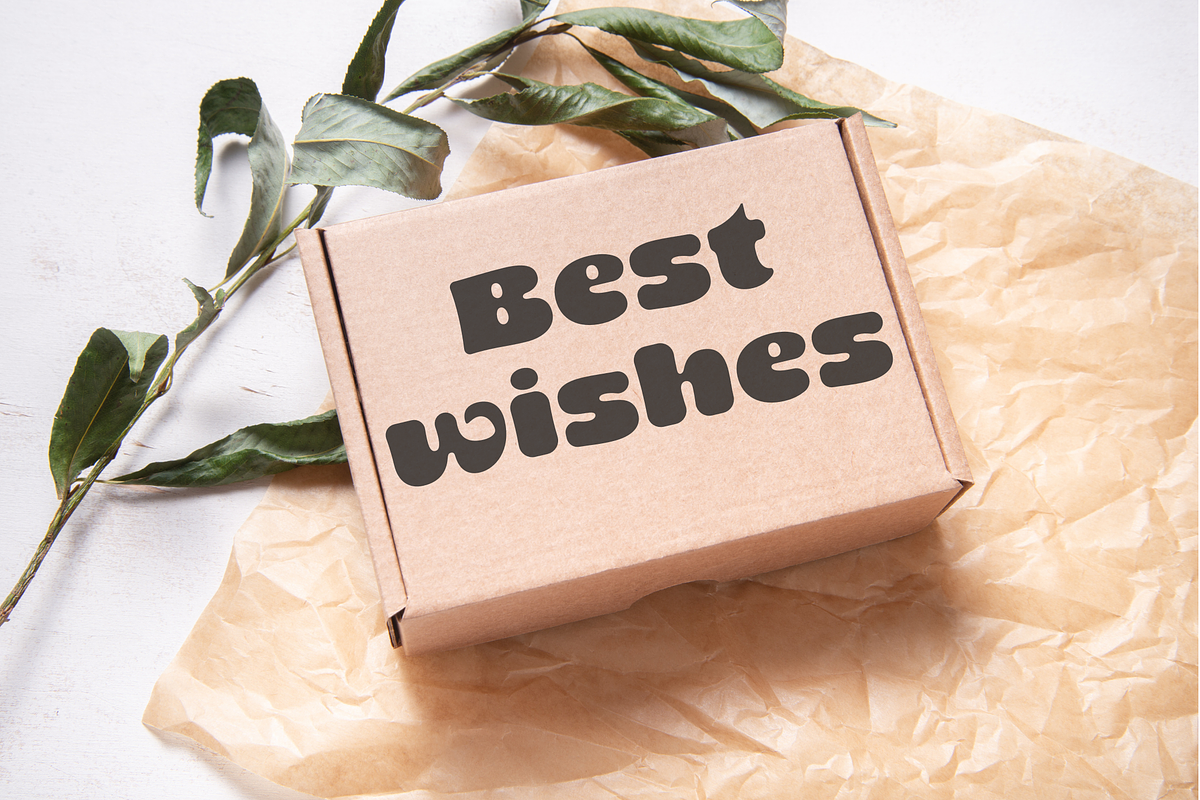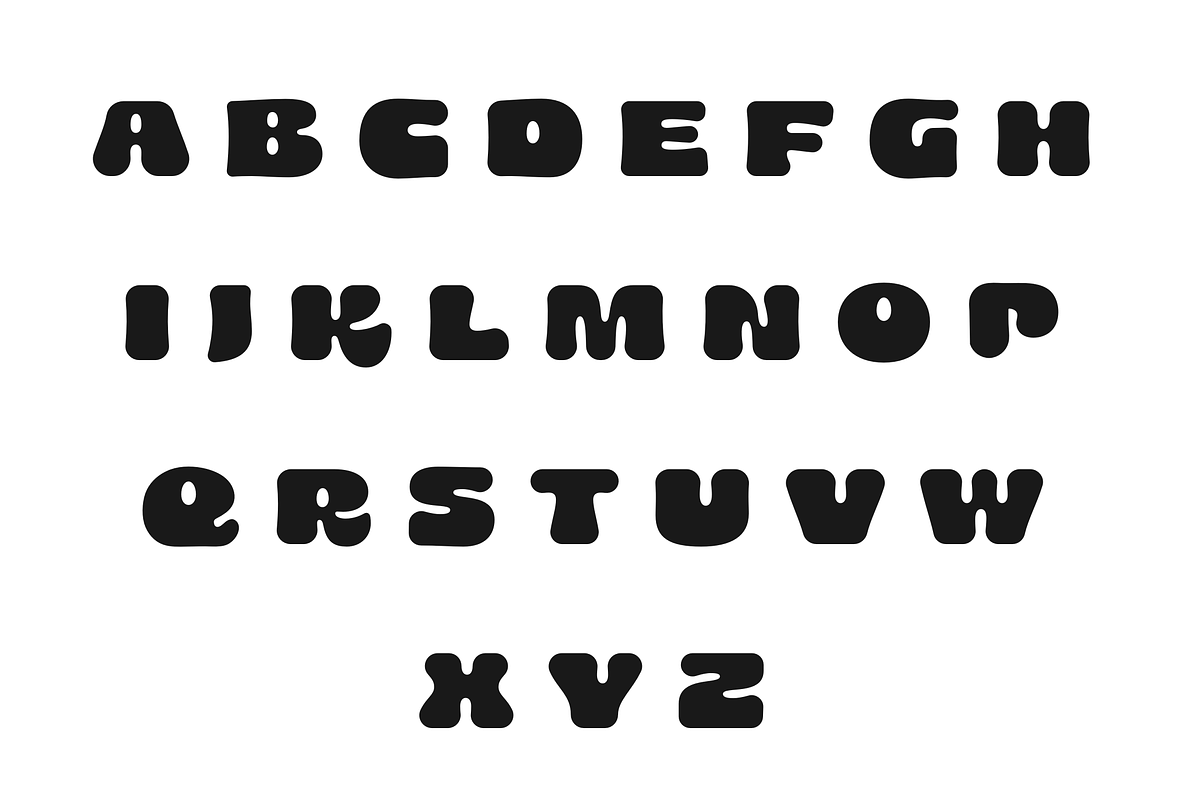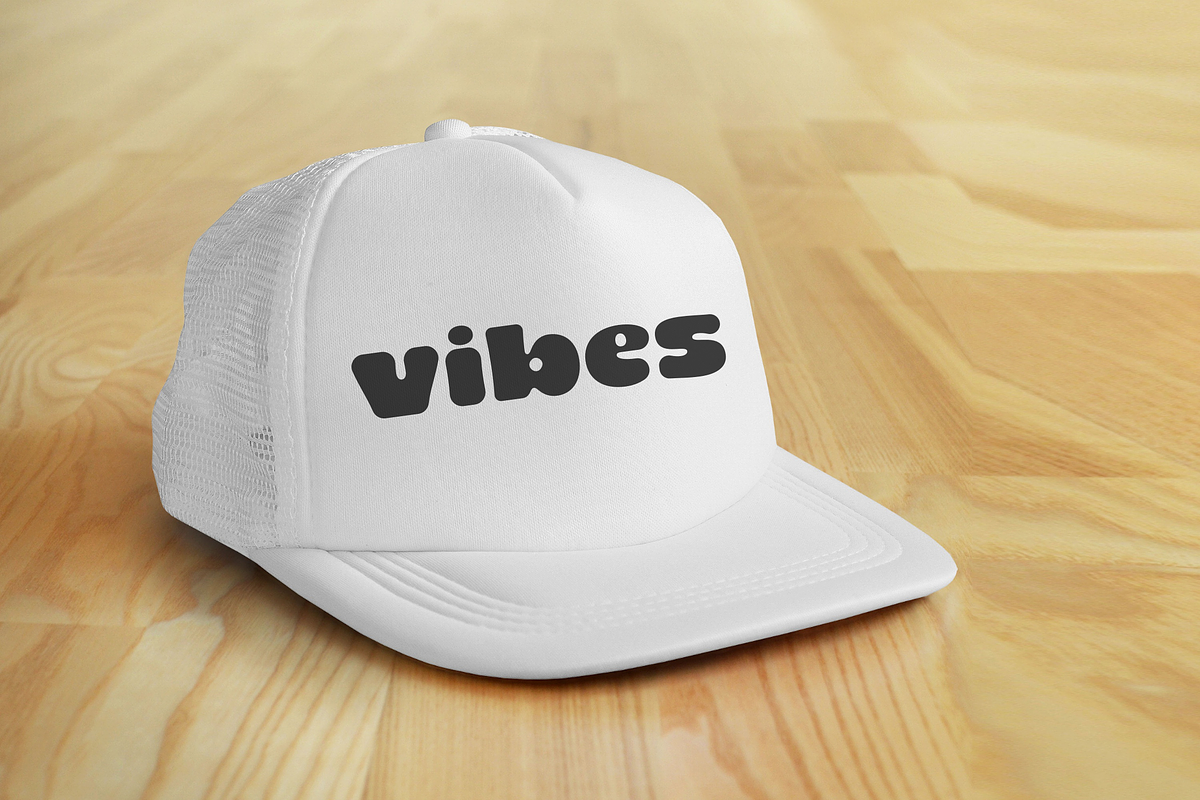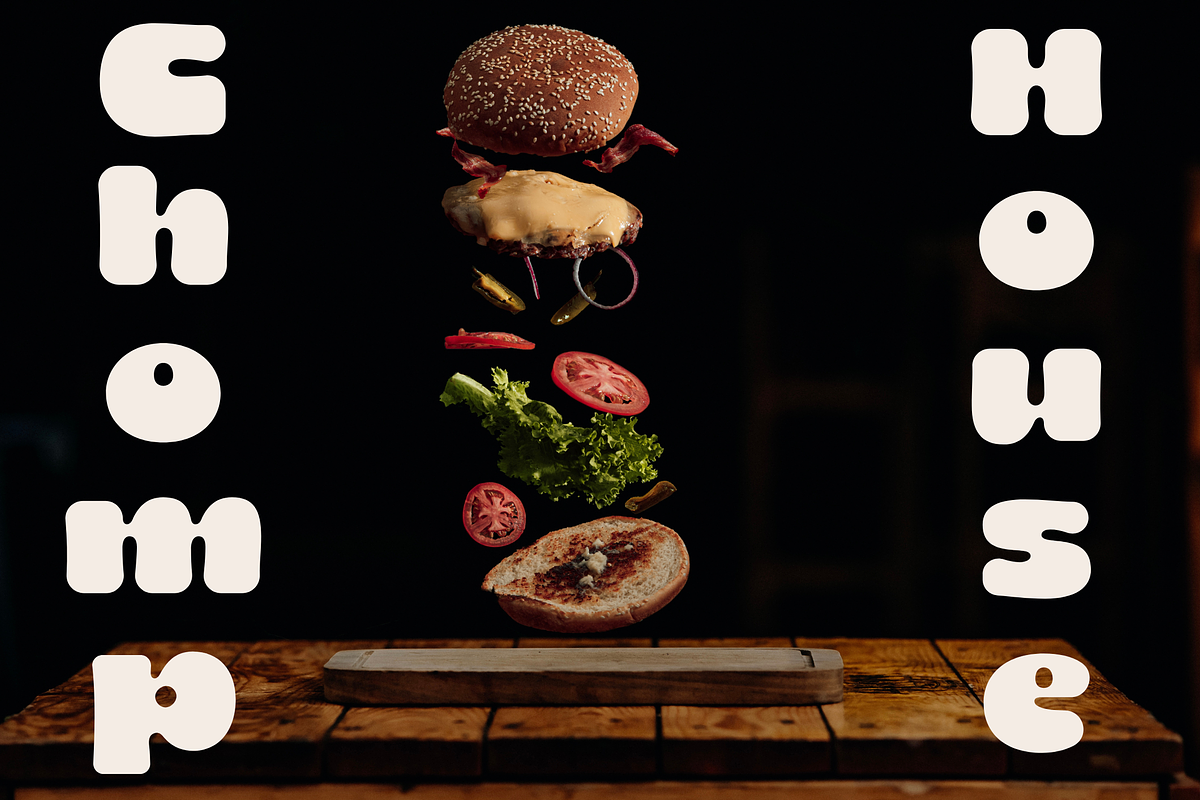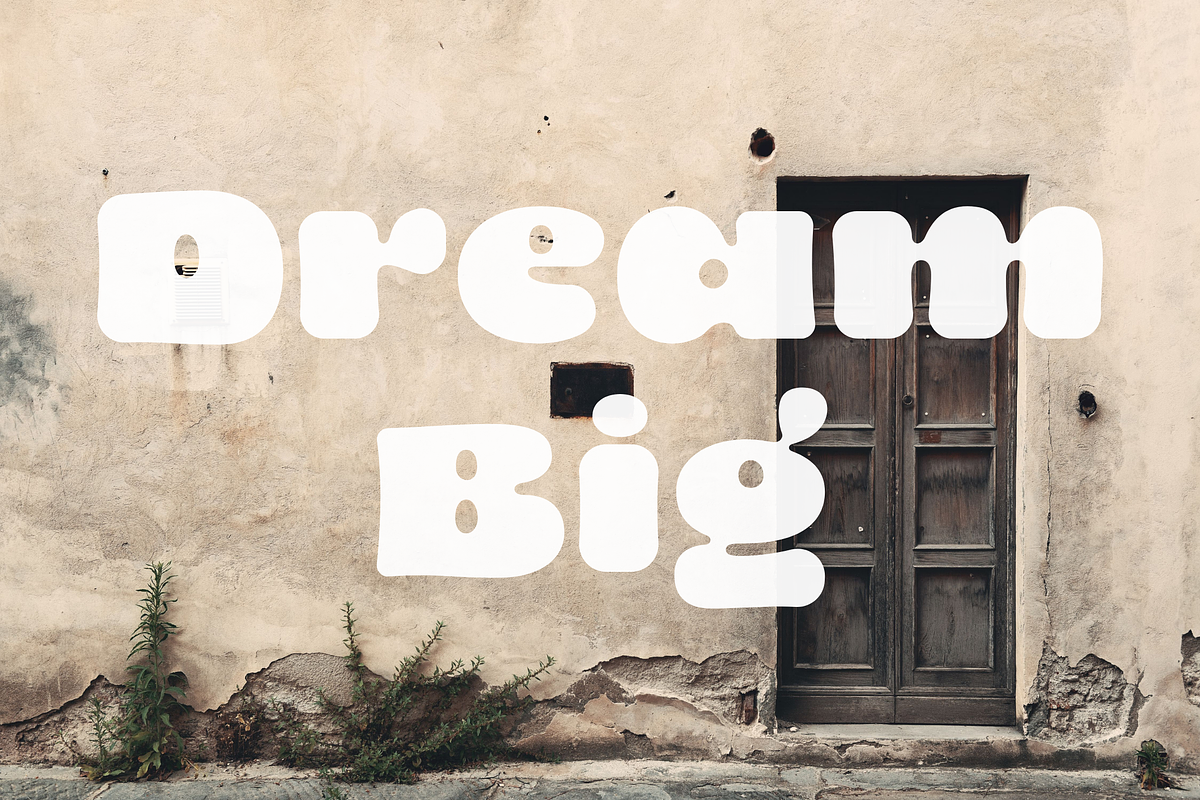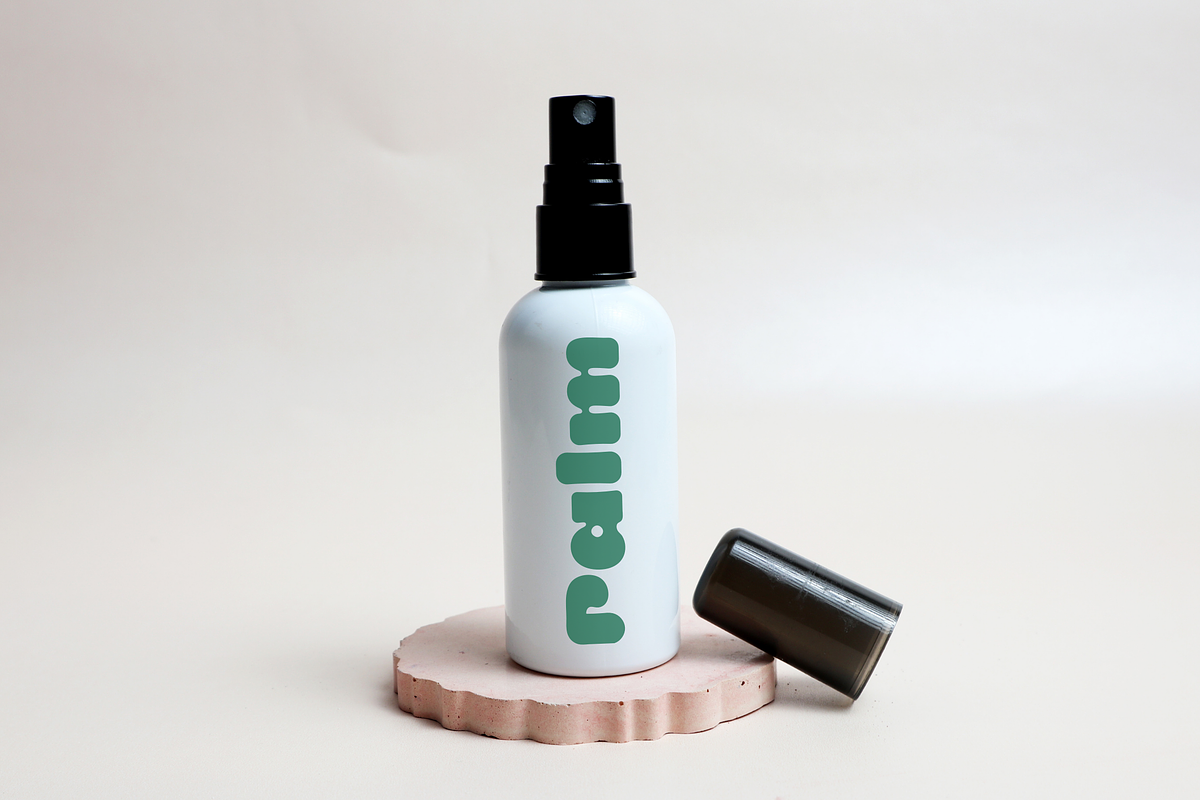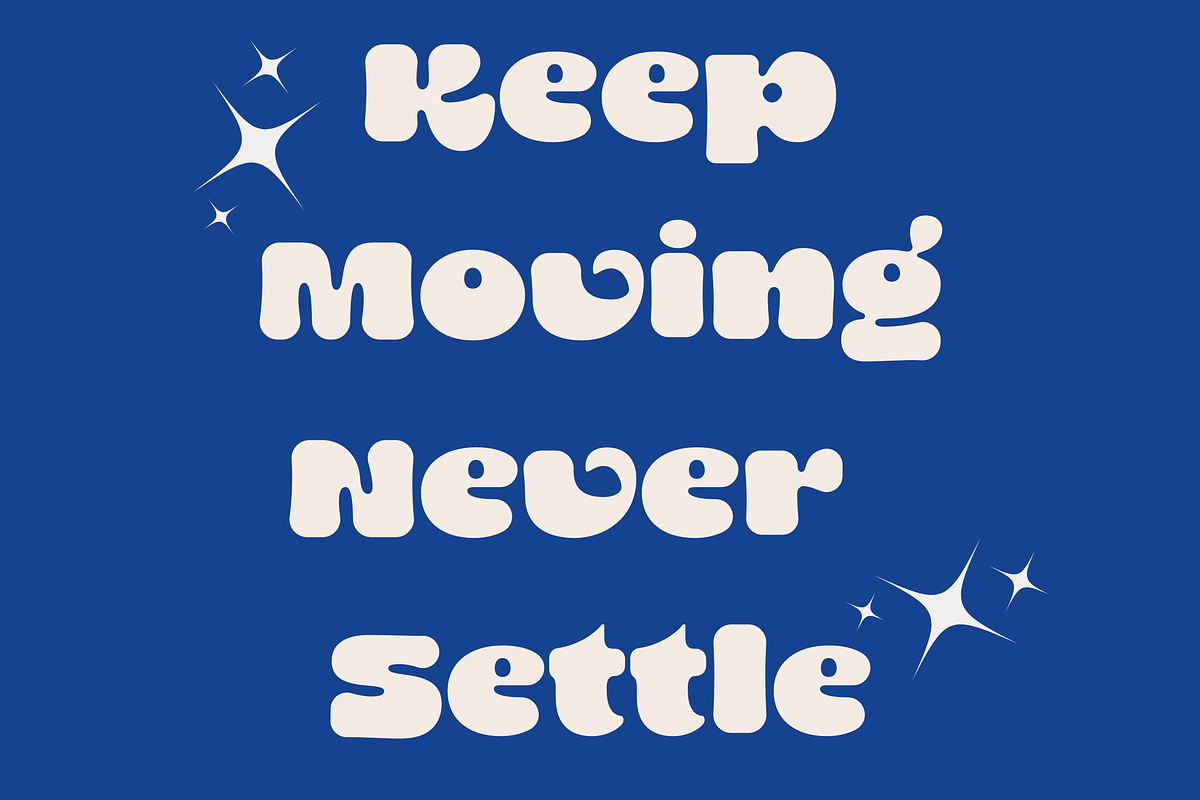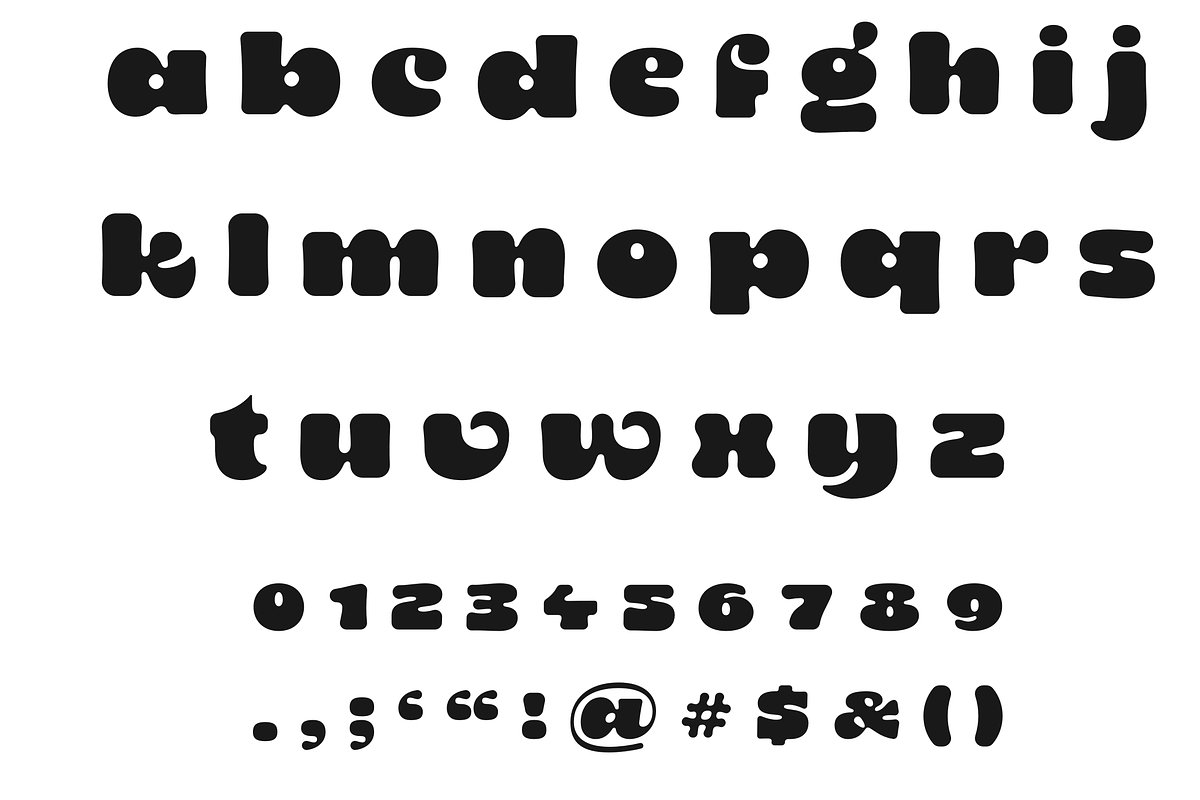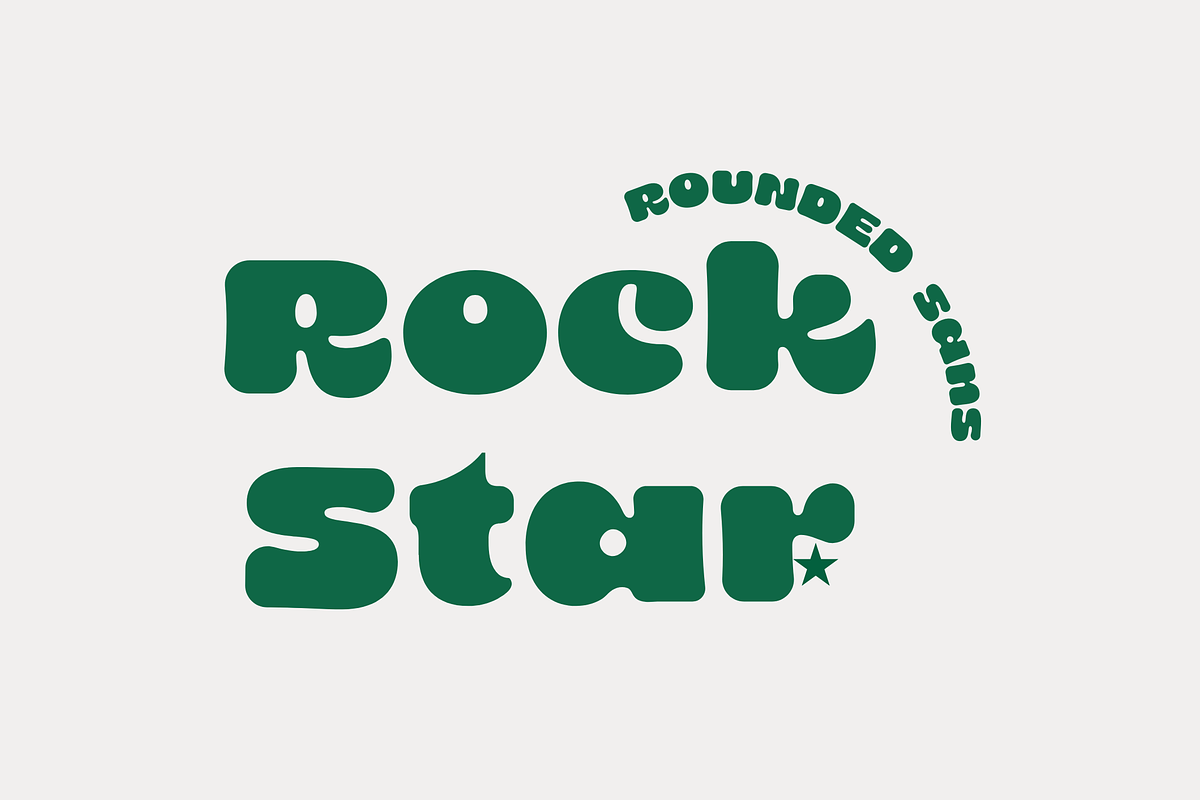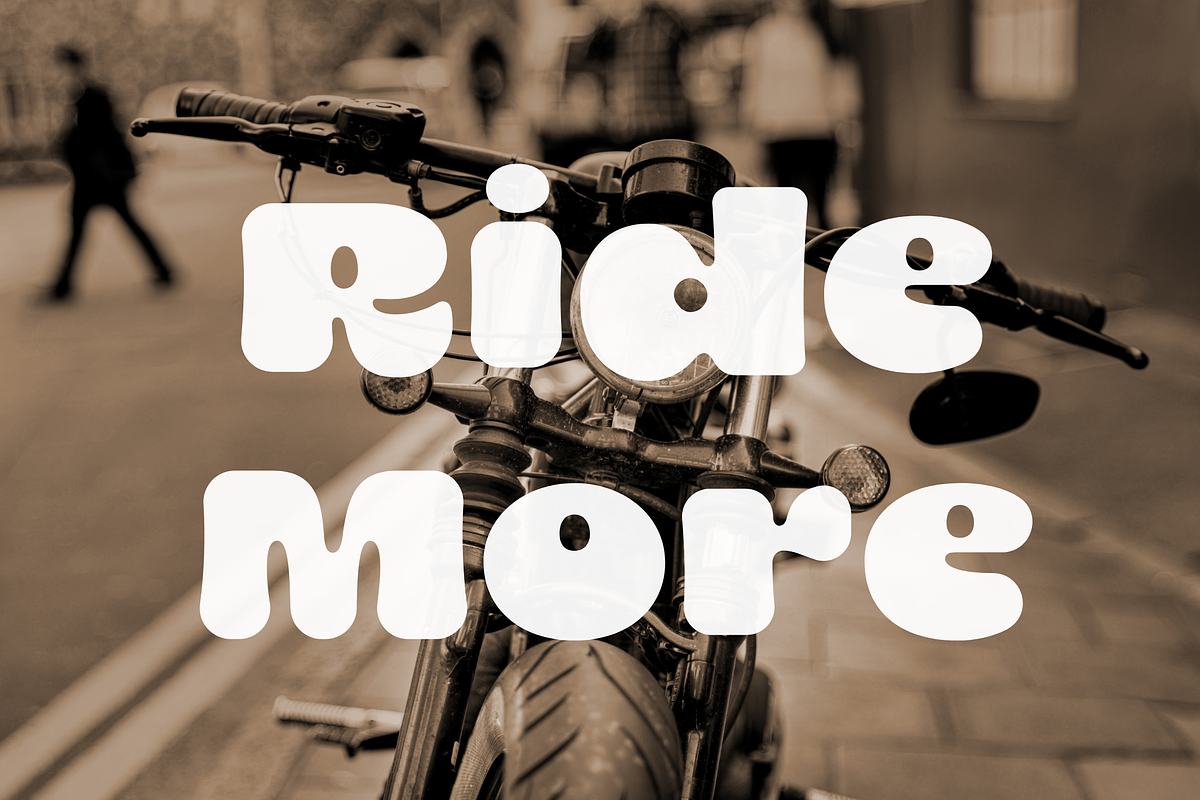
Rock star - Rounded bold sans serif
Rock star a bold and modern rounded sans-serif font with a groovy twist! Perfect for branding, logos, social media, packaging, and trendy designs, this font blends smooth curves with a strong presence. Whether you're crafting a retro-inspired project or a sleek, modern look, this typeface adds a fun yet professional touch.
Features: Uppercase, Lowercase, Numbers & punctuation.